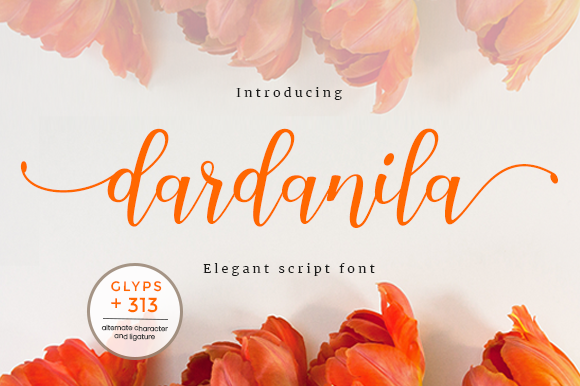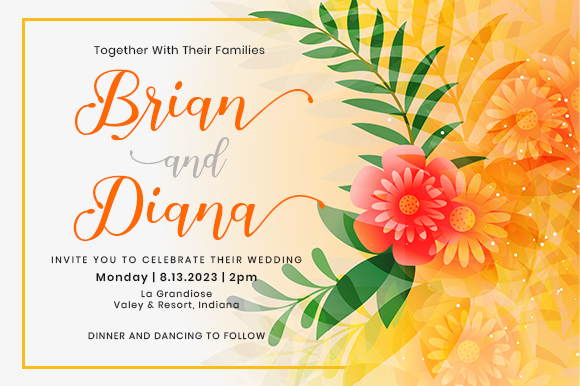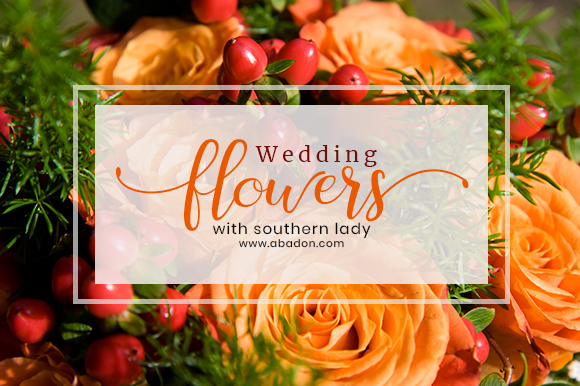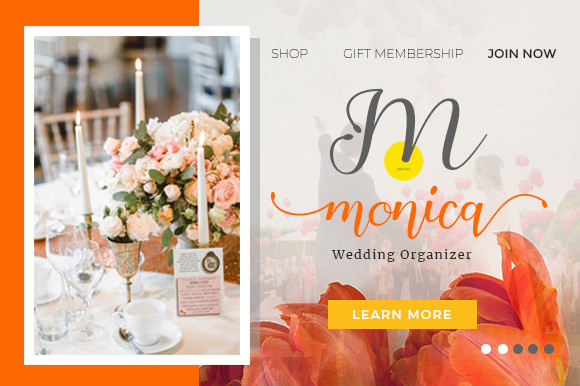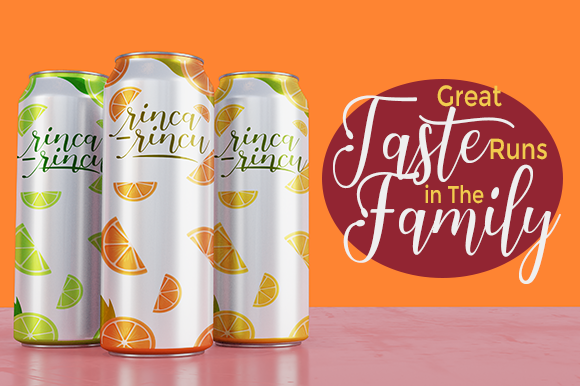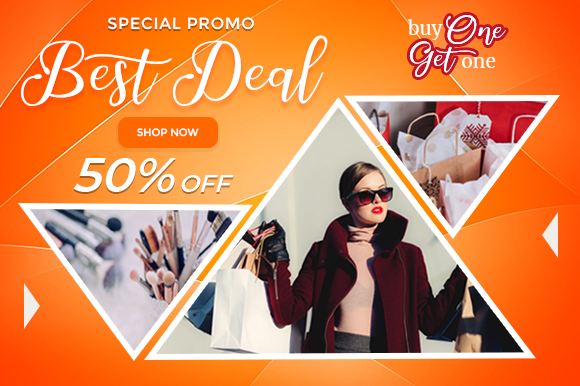
Dardanila Font
About Dardanila Font
Dardanila is a sweet, soft hand-lettered script font. The playful rounded characters make it the perfect font for creating stunning calligraphy art. Dardanila comes packed with PUA encoded characters, that will allow you to add a decorative touch within seconds. It comes in both PTF and TTF. Fall in love with its authentic feel and use it to create gorgeous wedding invitations, beautiful stationary art, eye-catching social media posts, and cute greeting cards.